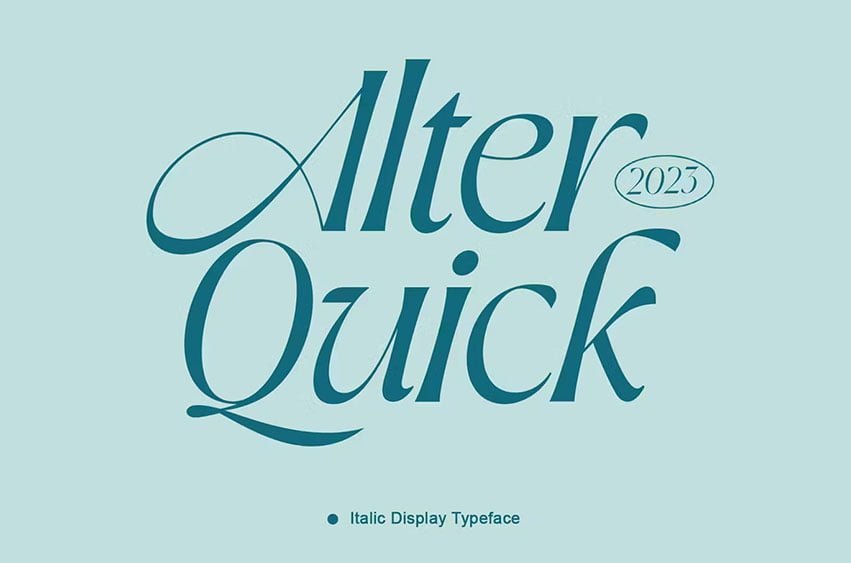
Alter Quick Font will perfect for many project: book, magazines, logo, branding, photography, quotes, blog header, poster, advertisements, etc.
Alter Quick Font Preview